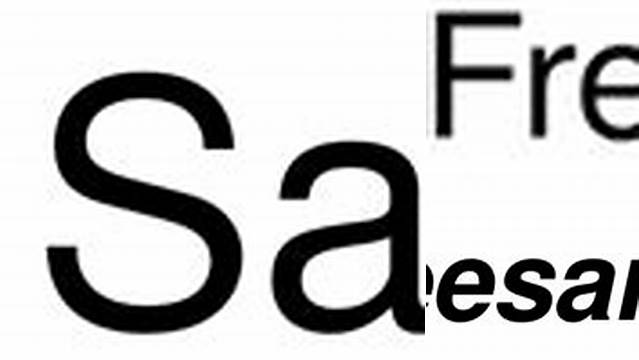
Hey guys! Ever needed a clean, versatile font that just works? Then you've probably heard of FreeSans. It's like that reliable friend who's always there for you, no matter the project. Whether you're designing a website, crafting a presentation, or even just writing a simple document, FreeSans is a solid choice. The best part? You can download FreeSans for free and use it commercially without worrying about licensing headaches. Let's dive into why FreeSans is so awesome and how you can get your hands on it. This open-source font has gained popularity due to its clear, readable design and its availability under the GNU General Public License, allowing for both personal and commercial use. In this article, we'll explore everything you need to know about FreeSans, from its origins and characteristics to where you can safely download it and how to use it effectively in your projects. So buckle up, font lovers, because we're about to embark on a FreeSans journey!
FreeSans: A Comprehensive Overview
Before we get into the nitty-gritty of downloading and using FreeSans, let's take a step back and understand what this font is all about. FreeSans is a sans-serif typeface designed as part of the GNU FreeFont project. Its main goal was to create a freely available, high-quality font family that could be used across various platforms and applications. Think of it as the underdog rising to become a versatile champion. This font stands out with its clean lines, balanced proportions, and excellent readability, making it suitable for a wide range of design and text-based applications. Plus, because it's open-source, you can tweak and modify it to suit your needs without running into copyright issues. Its design philosophy emphasizes clarity and usability, ensuring that text remains legible even at small sizes or in challenging display conditions. The comprehensive character set supports multiple languages and includes a variety of symbols and special characters, making it a versatile choice for international projects. Understanding these foundational aspects will help you appreciate the true value of FreeSans in your design toolkit.
The Origins and History of FreeSans
Every great font has a story, and FreeSans is no exception. The journey of FreeSans began with the GNU FreeFont project, an ambitious undertaking aimed at providing a complete, open-source font solution. Spearheaded by talented designers and developers, the project sought to eliminate the need for proprietary fonts by creating a robust, freely distributable alternative. It's like a band of rebels fighting for open access! FreeSans emerged as a key component of this vision, offering a versatile sans-serif option that could rival commercial fonts in terms of quality and functionality. Over the years, FreeSans has undergone several revisions and improvements, thanks to the contributions of a dedicated community of volunteers. This collaborative effort has ensured that the font remains up-to-date with the latest standards and continues to meet the evolving needs of designers and users worldwide. Knowing the history behind FreeSans adds another layer of appreciation to its use, highlighting the spirit of collaboration and innovation that drives the open-source movement.
Key Characteristics of the FreeSans Font
What makes FreeSans so special? Well, it's all about the details! This font boasts a number of key characteristics that contribute to its widespread appeal. First and foremost, its clean and modern design ensures excellent readability, whether you're reading it on a screen or in print. The uniform stroke widths and balanced letterforms create a harmonious visual experience. It’s very pleasing to the eye, making it a great choice for body text, headlines, and everything in between. Furthermore, FreeSans supports a wide range of characters and symbols, including accented letters and special glyphs, making it suitable for multilingual projects. Its versatility extends to different design styles, from corporate reports to creative marketing materials. The font’s adaptability is further enhanced by its availability in various weights, allowing designers to create visual hierarchy and emphasize key information. In short, FreeSans is a font that combines functionality with aesthetic appeal, making it a valuable asset for any design project. Seriously, guys, it's a game-changer!
FreeSans vs. Other Popular Sans-Serif Fonts
How does FreeSans stack up against other popular sans-serif fonts like Arial, Helvetica, and Open Sans? While each of these fonts has its own unique characteristics, FreeSans offers a compelling alternative in terms of both functionality and licensing. Arial and Helvetica are widely used and well-established, but they are proprietary fonts, meaning you need to purchase a license to use them commercially. Open Sans, on the other hand, is a free and open-source font that is similar to FreeSans in terms of licensing. However, FreeSans offers a slightly different aesthetic, with its own distinct letterforms and proportions. Ultimately, the choice between FreeSans and other sans-serif fonts depends on your specific design needs and preferences. If you're looking for a free, versatile font with a clean and modern look, FreeSans is definitely worth considering. Plus, its open-source nature gives you the freedom to modify and customize it to suit your unique needs.
Design Tips: How to Best Utilize FreeSans in Your Projects
To make the most of FreeSans in your design projects, here are a few tips to keep in mind. First, consider the overall tone and style of your design. FreeSans is a versatile font that can work well in both formal and informal contexts, but it's important to ensure that it aligns with the overall aesthetic. Use different weights and sizes of FreeSans to create visual hierarchy and emphasize key information. For example, you can use a bold weight for headings and a regular weight for body text. Pay attention to line spacing and letter spacing to ensure optimal readability. Experiment with different color combinations to see how FreeSans looks against various backgrounds. Finally, don't be afraid to combine FreeSans with other fonts to create a more dynamic and visually interesting design. By following these tips, you can harness the full potential of FreeSans and create stunning designs that stand out from the crowd.
FreeSans for Web Design: Optimizing for Online Use